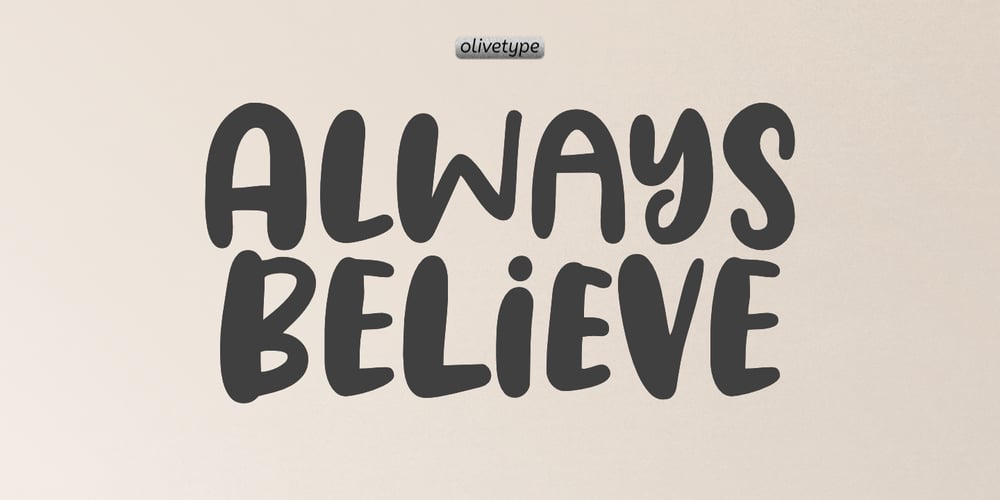
Always Believe Font Family was designed by Nurul Hidayani and published by Olivetype. Always Believe contains 1 styles and family package options. Always Believe is a simple, fun, and relaxed handwritten font. Whether you’re using it for crafting, digital designing, presentations, or greeting card making, it’s perfect!This font is supporting Multi-Languages, which includes: Afrikaans Albanian Catalan Danish Dutch English Estonian Finnish French German Italian Norwegian Portuguese Spanish Swedish Zulu.You will get : Always Believe OTFThank You